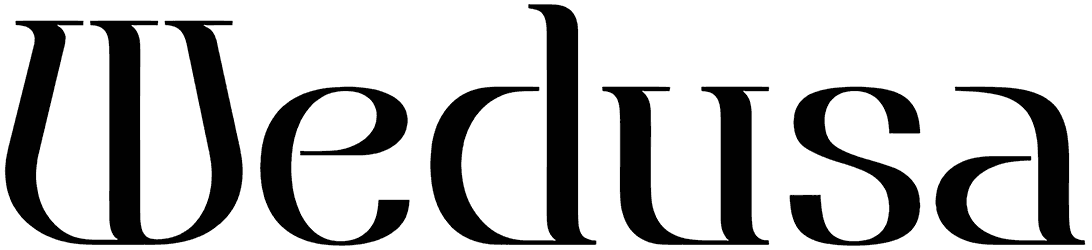
Wedusa Font
The symbolic design of Wedusa won’t let you go any further in your search. You’ll just know this retro font is what you’ve been looking for this whole time. The slight curve in their bodies coupled with its vintage charm makes this serif font one of a kind.
You’re probably going to need such an aesthetic touch for your titles on old books, fancy business cards for music classes, or websites about antiques and ancient cultures, you get the idea.